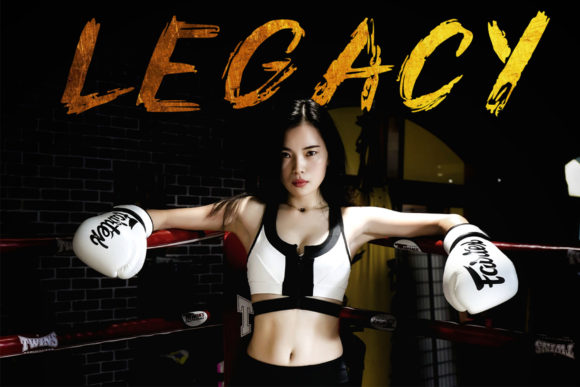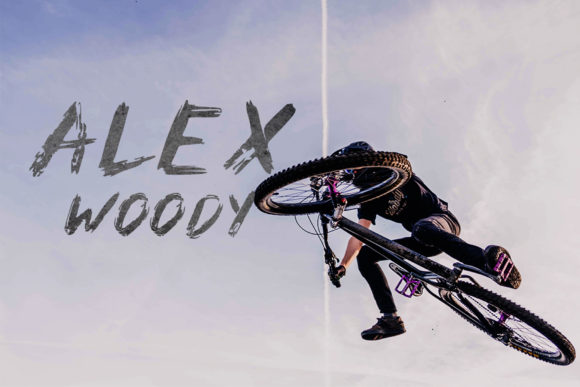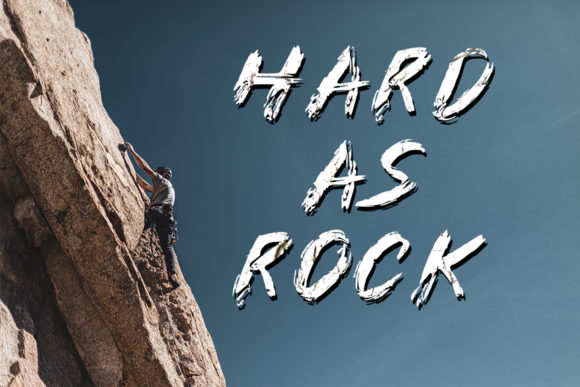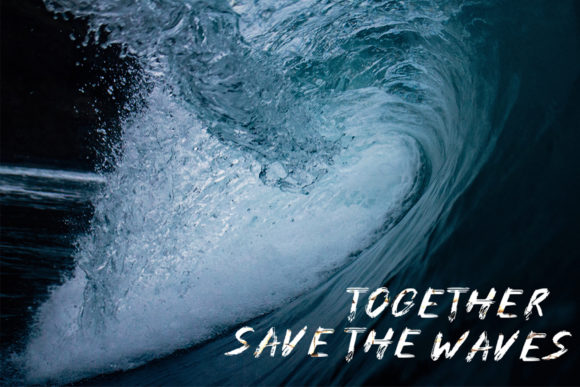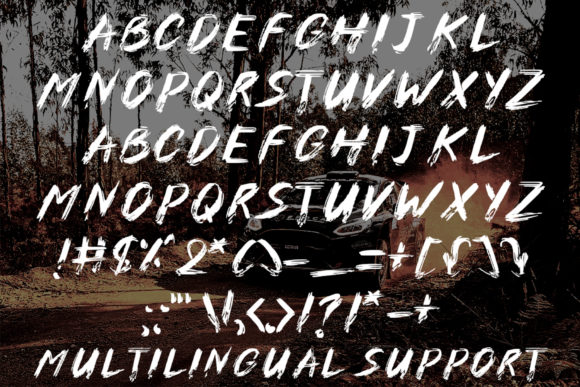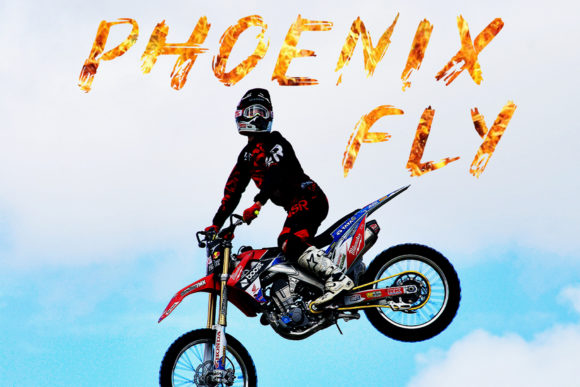
Unleash Your Creativity with Cross X Font: A Bold and Unique Display Font
Are you tired of using the same old fonts for your creative projects? Do you want to add a touch of uniqueness and boldness to your designs? Look no further than Cross X Font, a game-changing display font that’s about to take your creative ideas to the next level. In this article, we’ll dive into the world of Cross X Font, exploring its features, benefits, and uses, and show you how it can make your designs come alive.
What is Cross X Font?
Cross X Font is a bold and unique display font designed to add a touch of edginess and sophistication to your creative projects. With its distinctive cross-like design, this font is sure to grab attention and make your designs stand out from the crowd. Whether you’re a designer, crafty DIY enthusiast, or simply someone who loves to express themselves through art, Cross X Font is the perfect addition to your creative toolkit.
Key Features of Cross X Font
- Bold and Unique Design: Cross X Font boasts a bold and unique design that’s sure to make a statement. Its cross-like structure adds a touch of edginess and sophistication to any design.
- Versatile: This font is perfect for a wide range of creative projects, from posters and flyers to logos, branding, and even crafts.
- Easily Readable: Despite its bold design, Cross X Font is surprisingly easy to read, making it perfect for headlines, titles, and short phrases.
- Scalable: This font is designed to be scalable, ensuring that it looks great in any size, from small to large.
Benefits of Using Cross X Font
So, why should you choose Cross X Font for your creative projects? Here are just a few benefits of using this amazing font:
- Adds Visual Interest: Cross X Font adds a touch of visual interest to any design, making it perfect for grabbing attention and engaging your audience.
- Enhances Creativity: With its unique design, Cross X Font can help stimulate your creativity and inspire new ideas.
- Perfect for Branding: This font is perfect for creating memorable logos, branding, and identity designs that will help your business stand out.
Using Cross X Font in Your Creative Projects
So, how can you use Cross X Font in your creative projects? Here are a few ideas to get you started:
- Posters and Flyers: Use Cross X Font to create eye-catching posters and flyers that grab attention and communicate your message.
- Logos and Branding: Create memorable logos and branding designs that showcase your business’s unique personality.
- Crafts and DIY Projects: Add a touch of personality to your crafts and DIY projects, from handmade cards to woodworking and sewing.
- Digital Art: Use Cross X Font to add a bold and unique touch to your digital art, from illustrations to graphic designs.